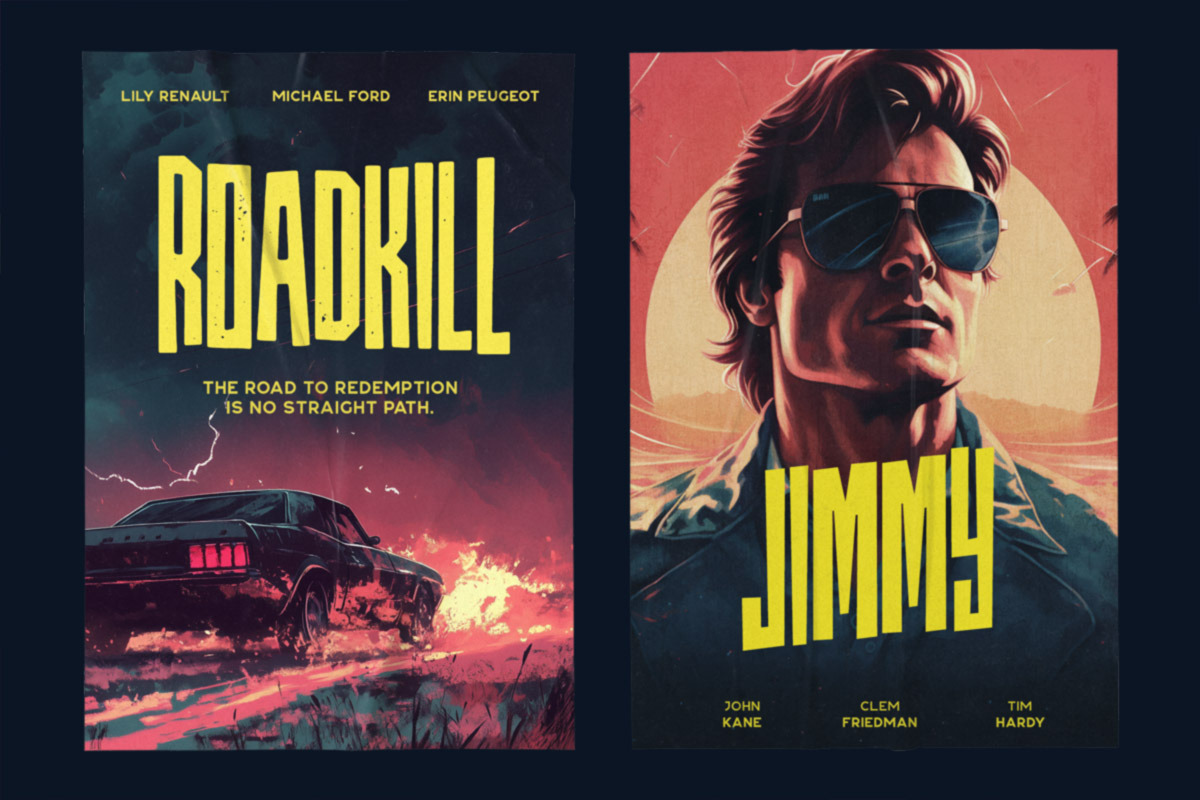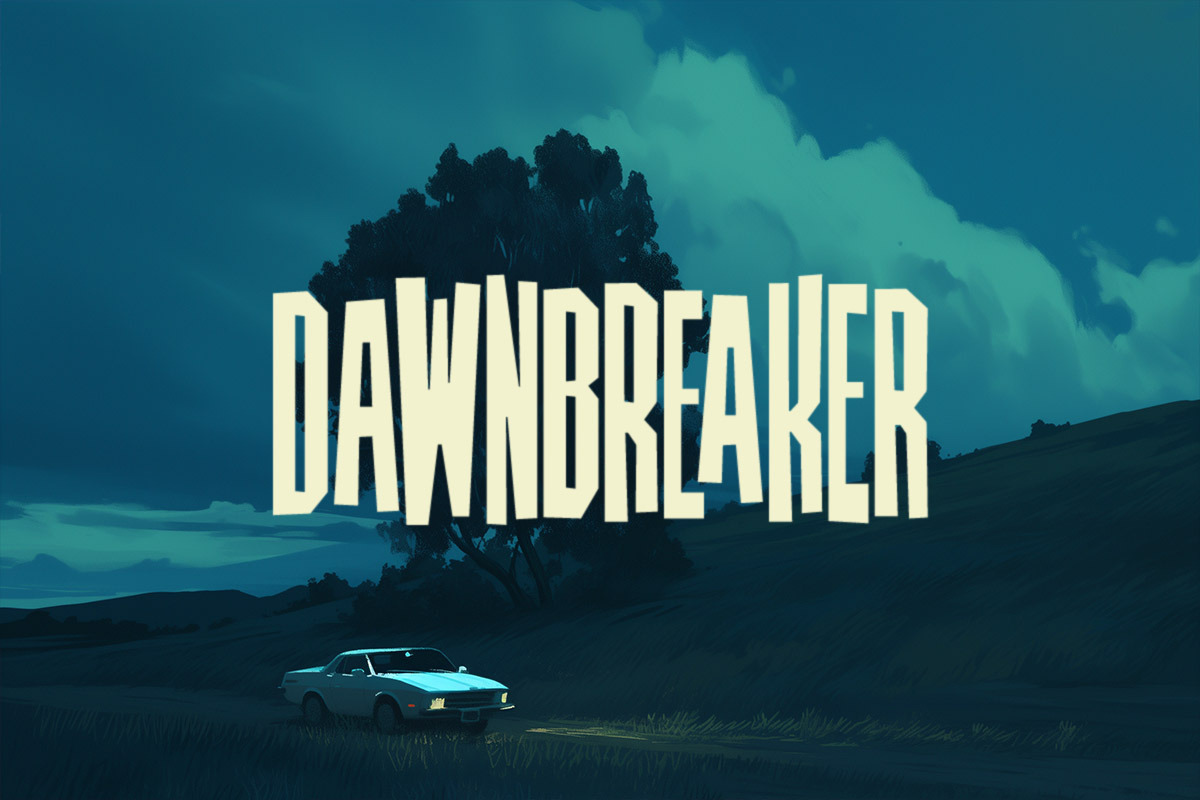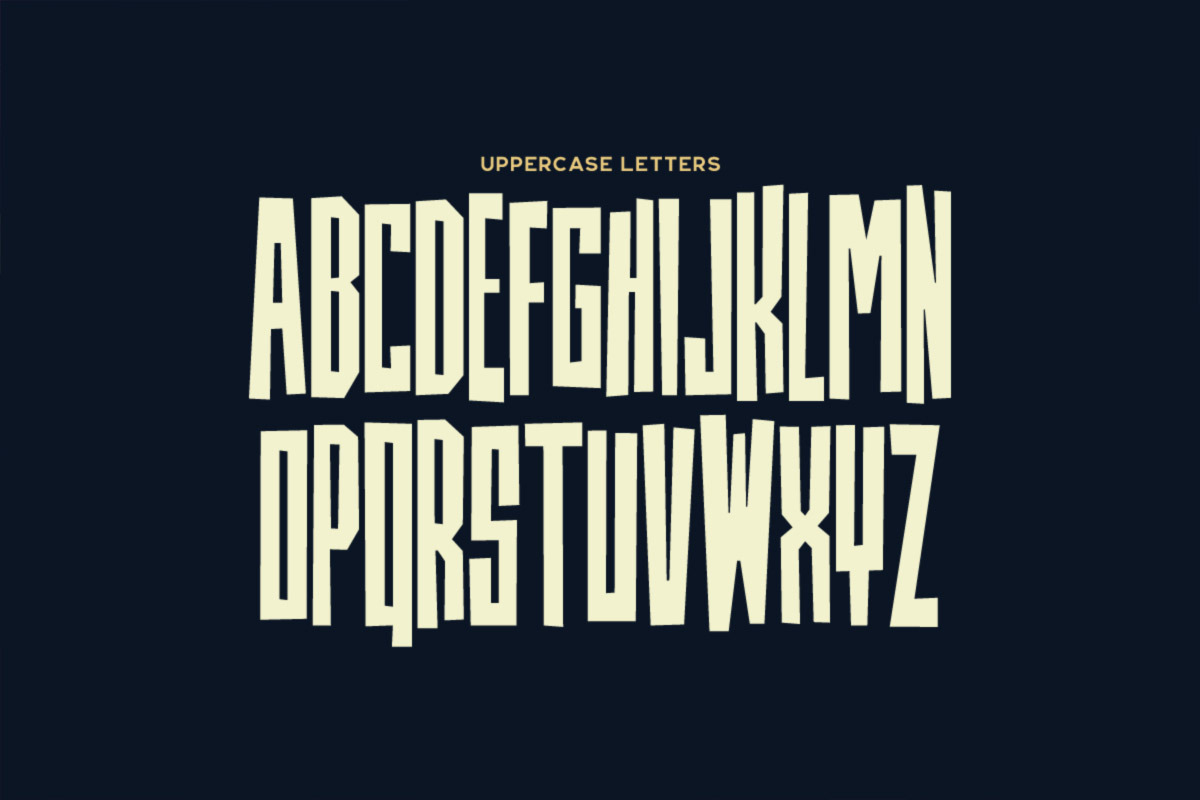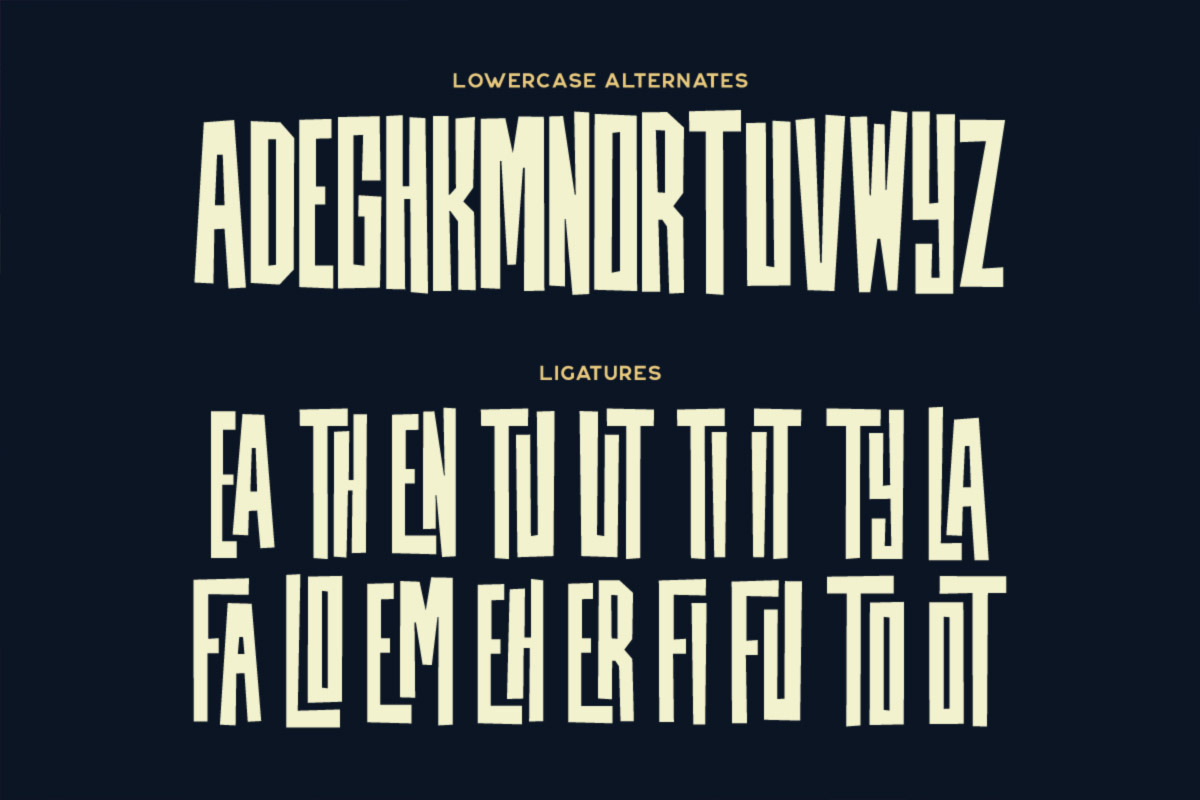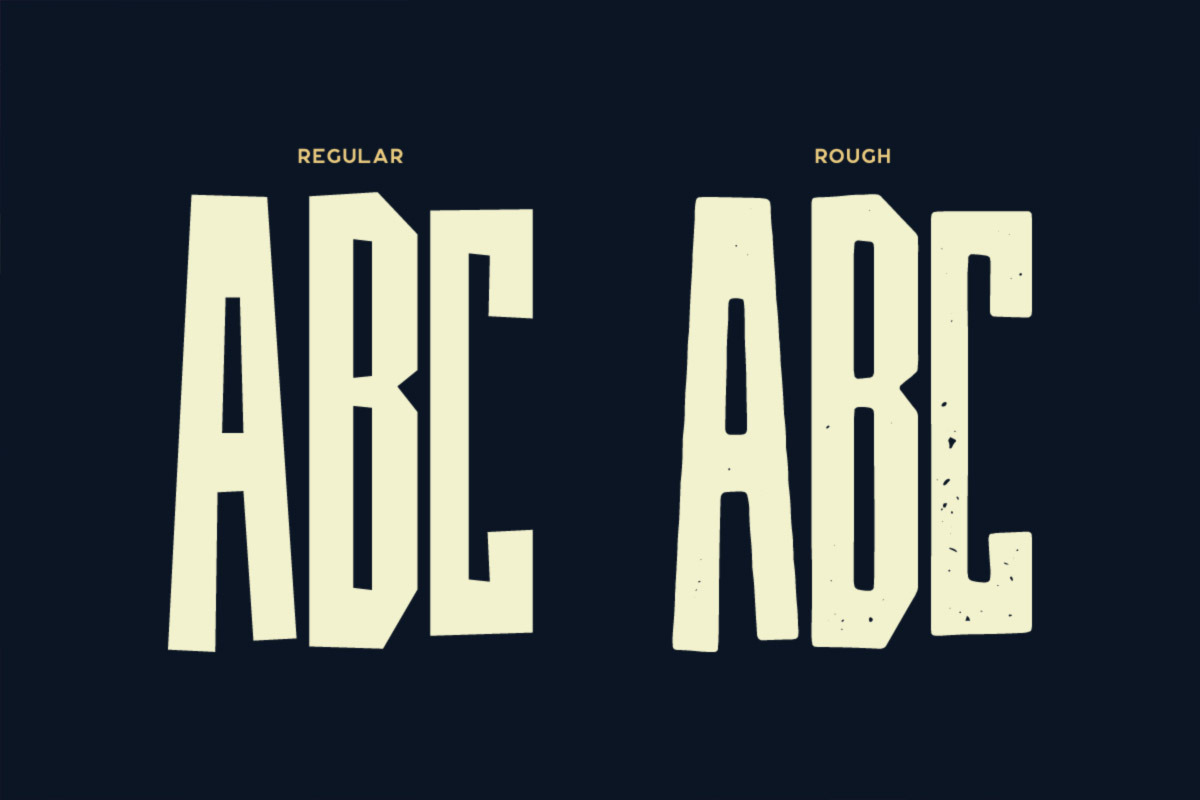
Dawnbreaker Typeface
Dawnbreaker is a tall irregular font family with alternate characters that can be toggled via Caps Lock. It comes with regular and rough style options and a bunch of ligatures.